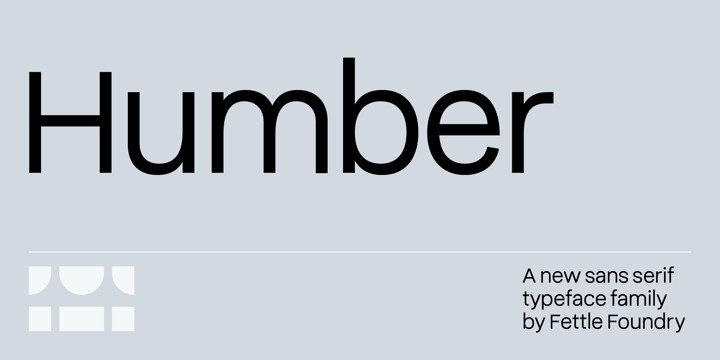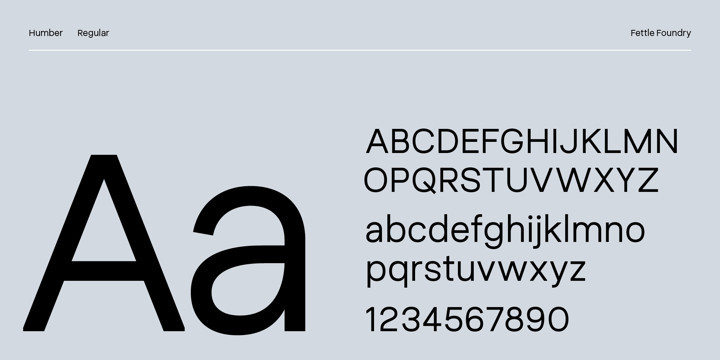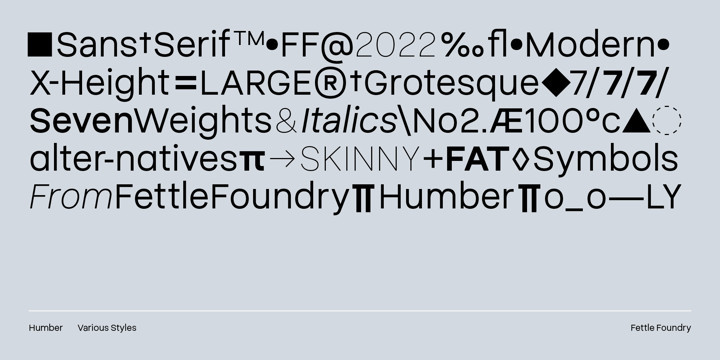
Humber Font Family
Humber Font FamilyHumber is a rational sans serif typeface designed with a large X-height to provide clarity at both text and display sizes – with subtle features that really shine at larger sizes.
Featuring seven weights and matching italics, discretionary ligatures, lining, old-style, and tabular figures, and conditional kerning for accented characters, Humber is truly versatile.
With over 654 glyphs, Humber supports over 339 latin-based languages.
Inspired by 20th century typefaces and modern European designs, Humber is suitable for a wide range of projects and audiences looking for a typeface that feels professional – without being overly familiar.